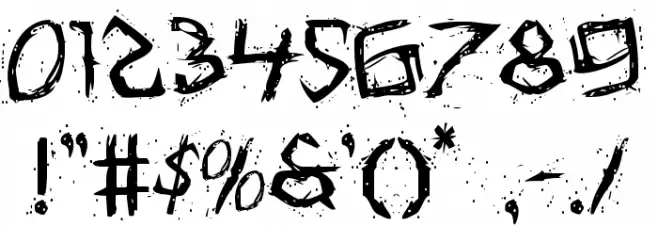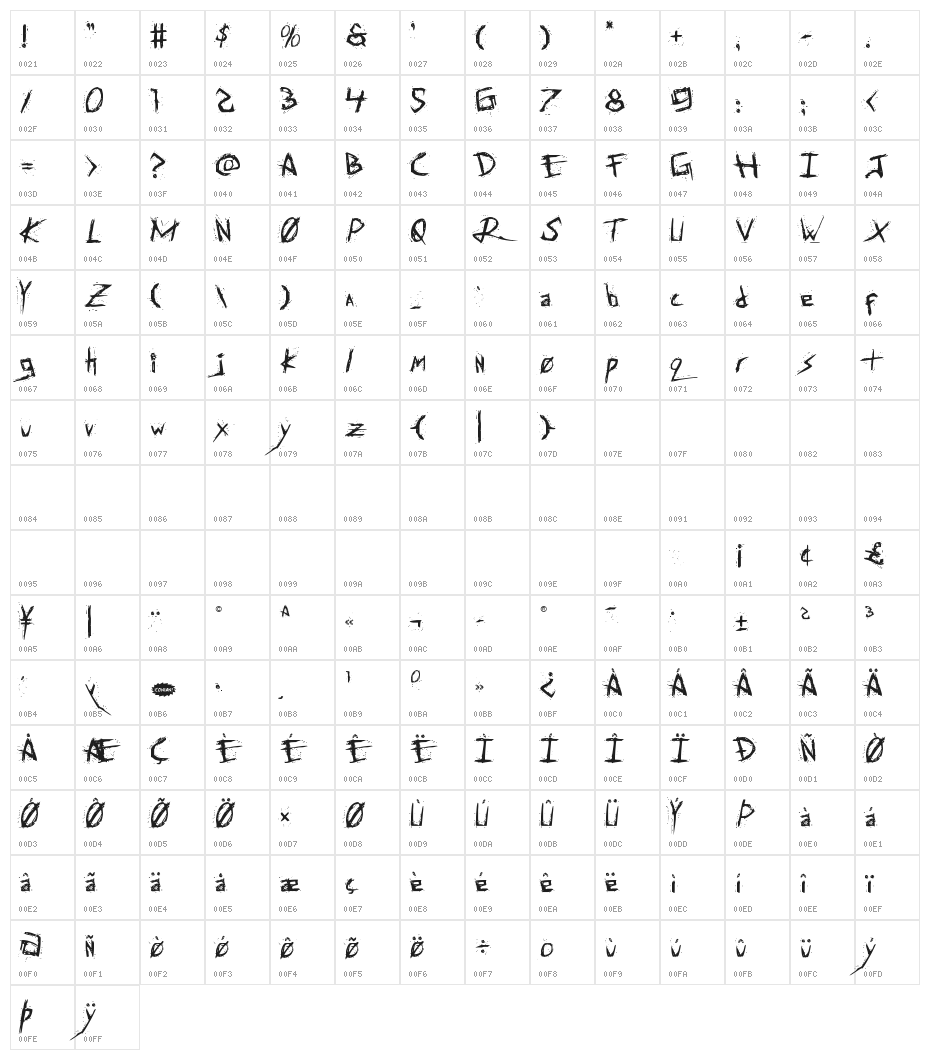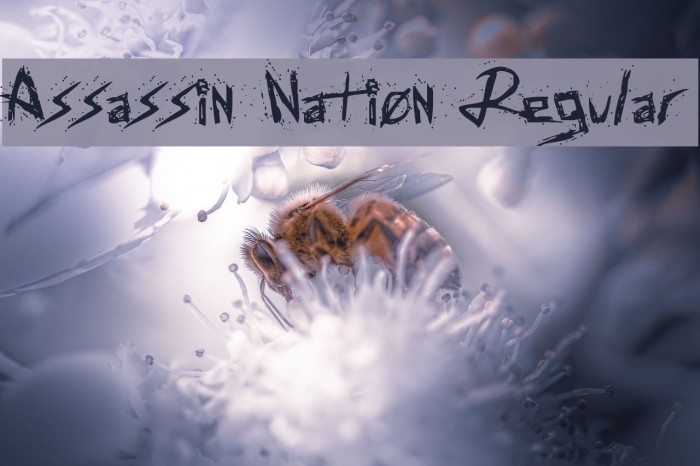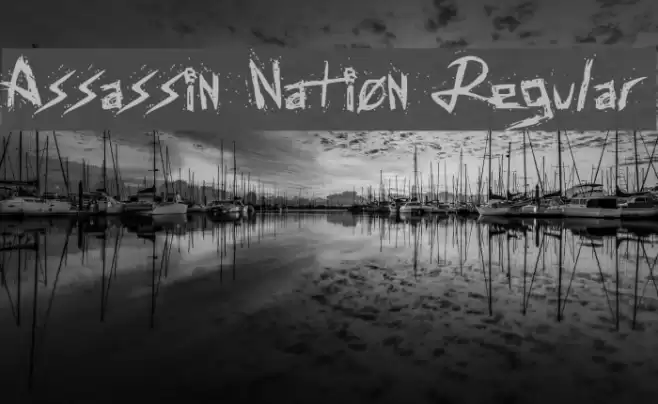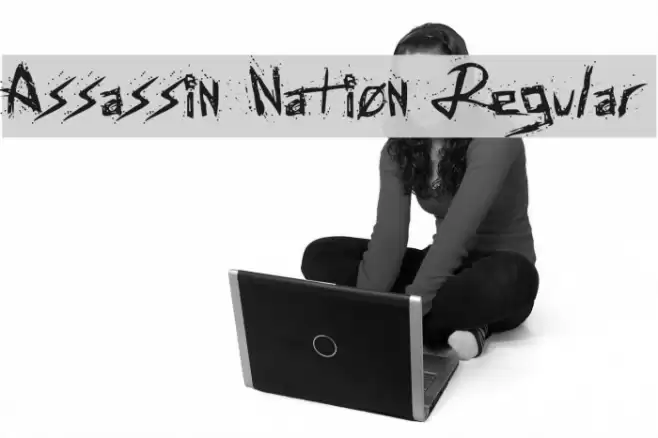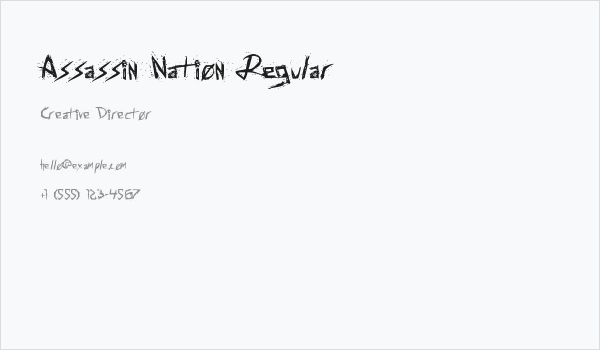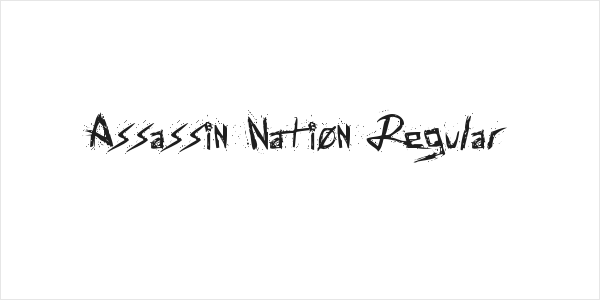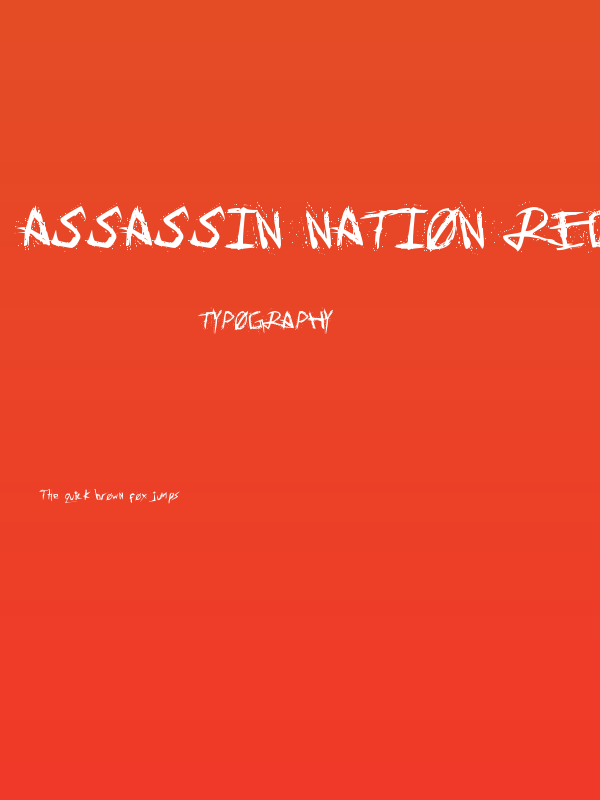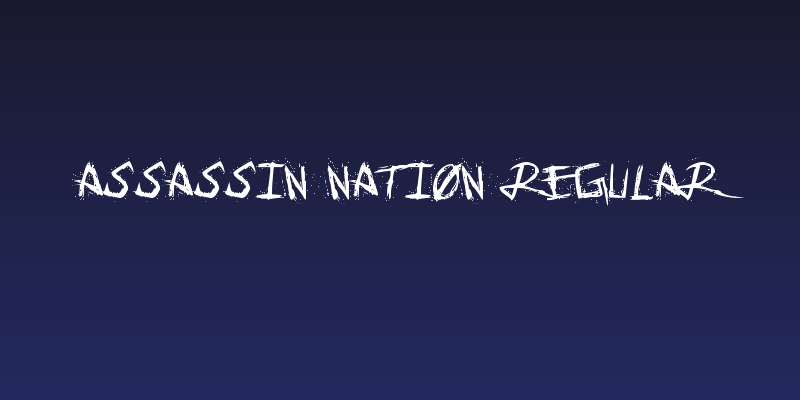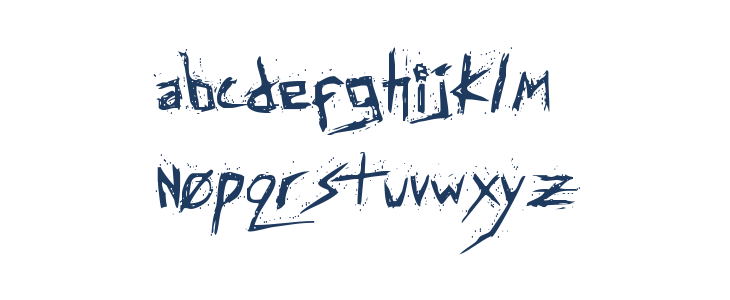
Assassin Nation Regular Font
Assassin Nation Regular Description
This font exhibits a raw, edgy style with a hand-drawn appearance, characterized by jagged edges and irregular strokes. The letters are bold and expressive, conveying a sense of urgency and intensity. The uppercase and lowercase letters maintain a consistent theme, with sharp angles and a distressed texture that adds to its gritty aesthetic. Numbers and special characters follow the same design principles, making the font cohesive across all elements. The overall look is chaotic yet controlled, perfect for making a bold statement.
| Overall Style | Modern, Edgy |
| Proposed Projects | Ideal for projects requiring a rebellious or intense theme, such as music album covers, posters, video game graphics, or edgy branding materials. |